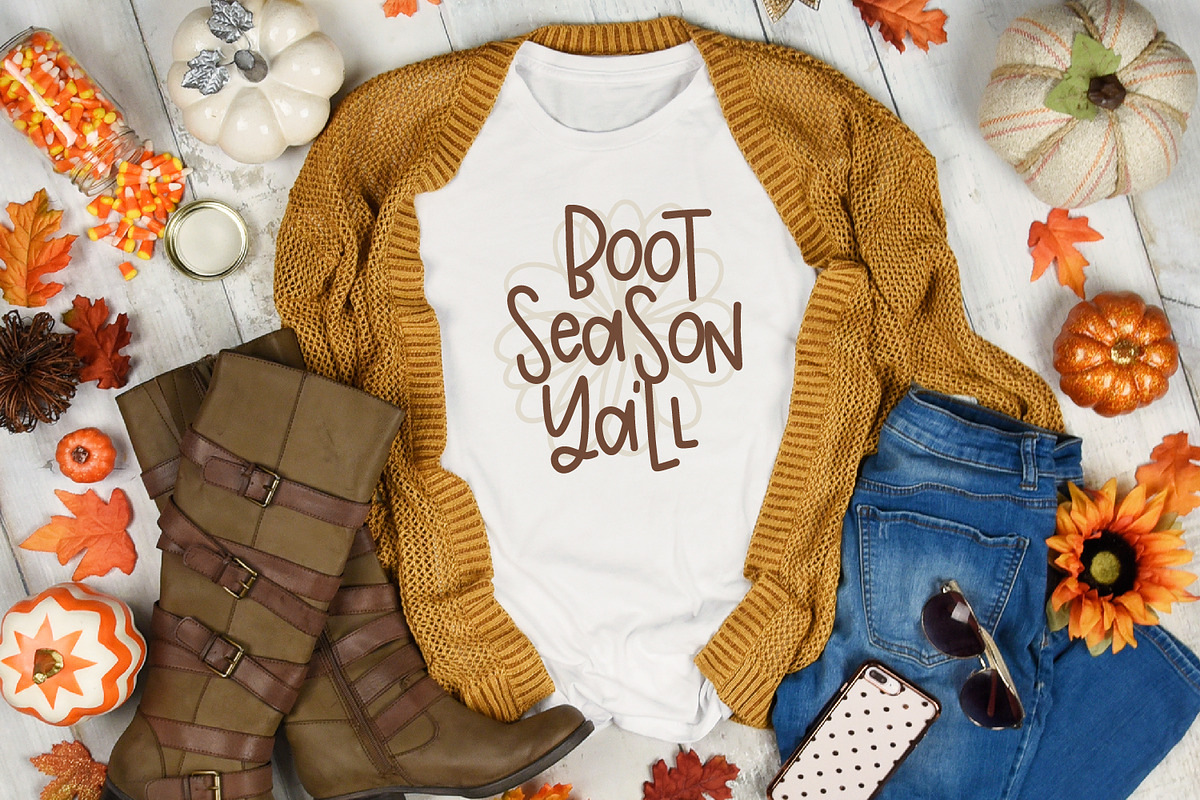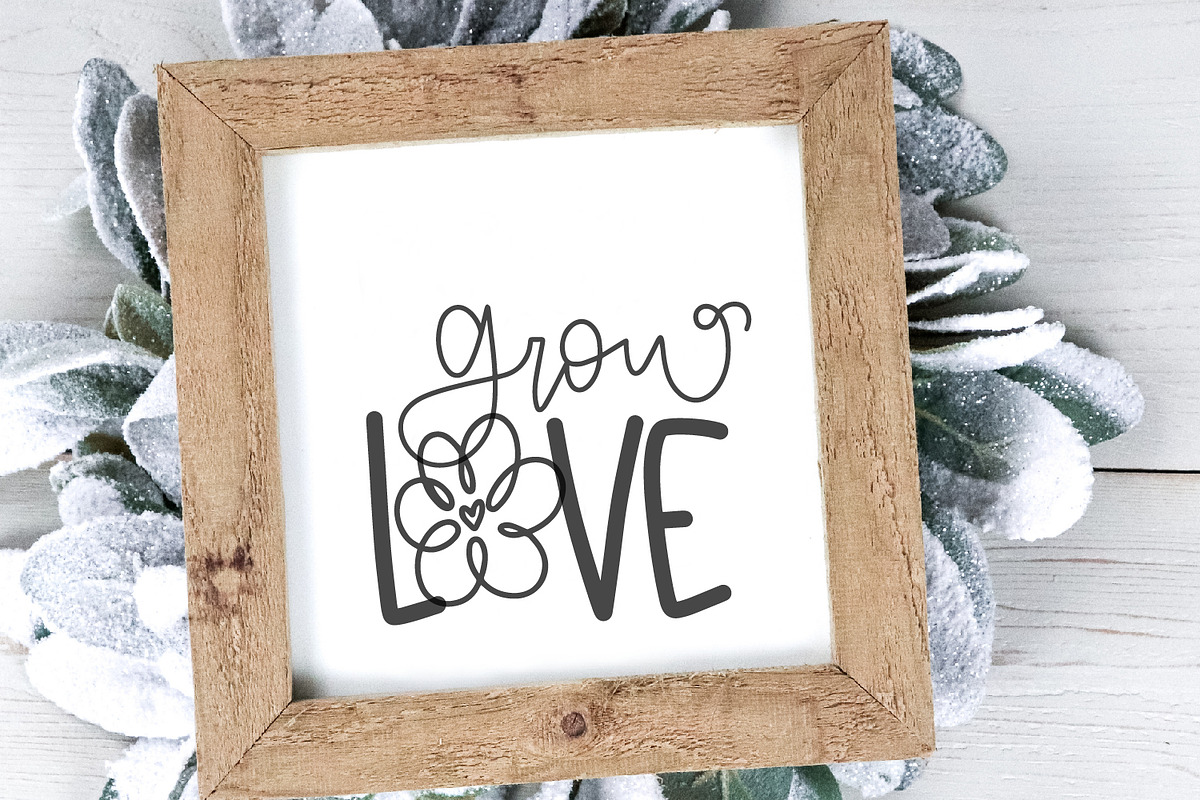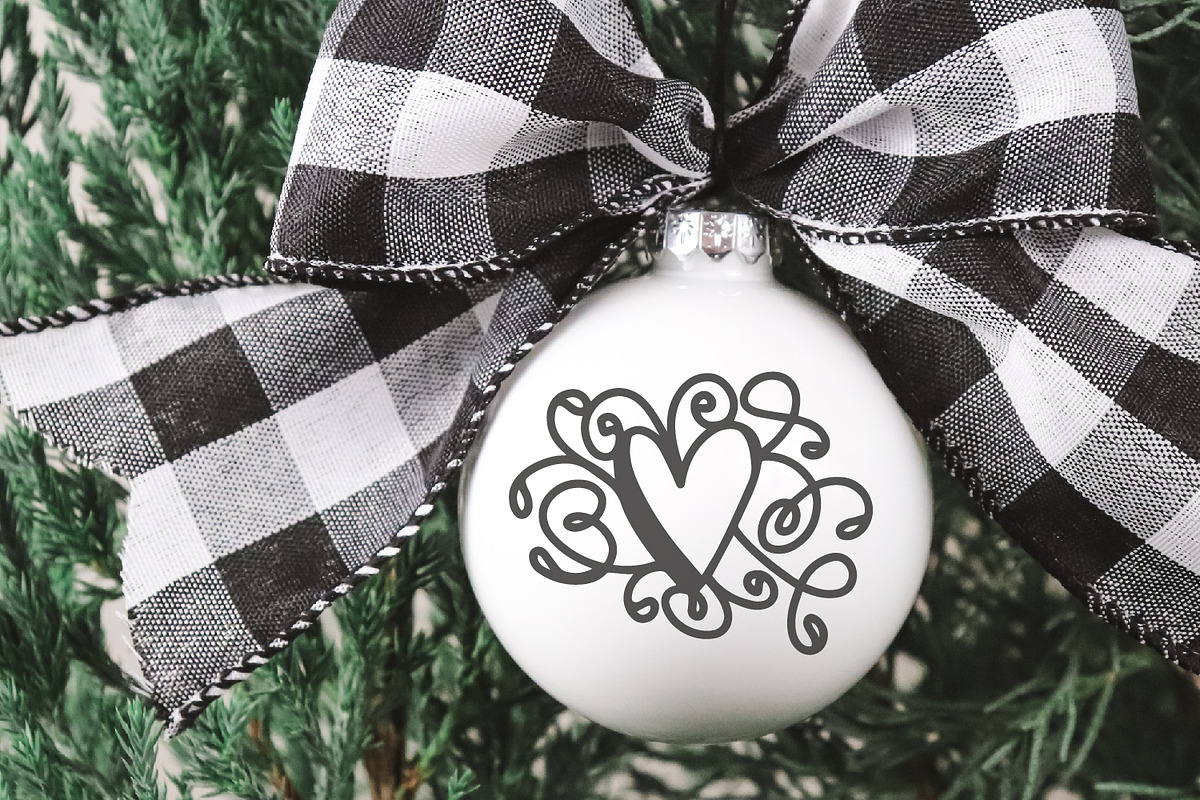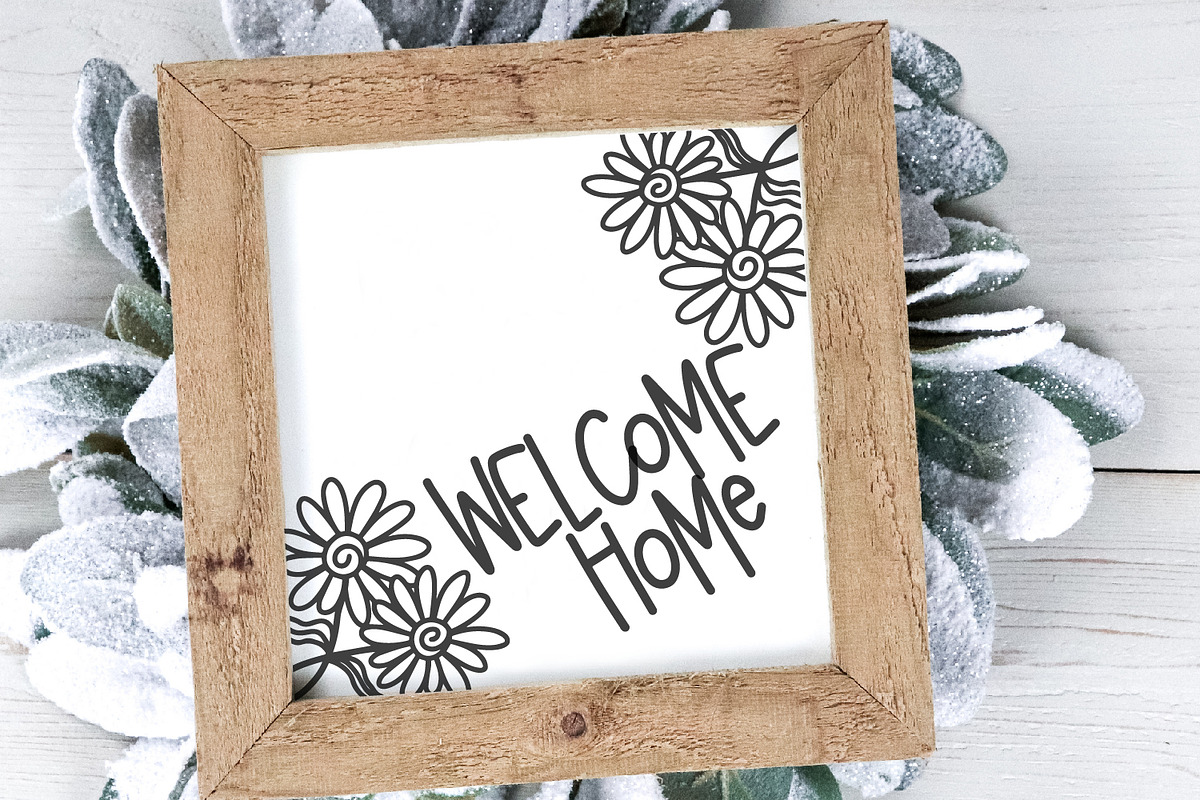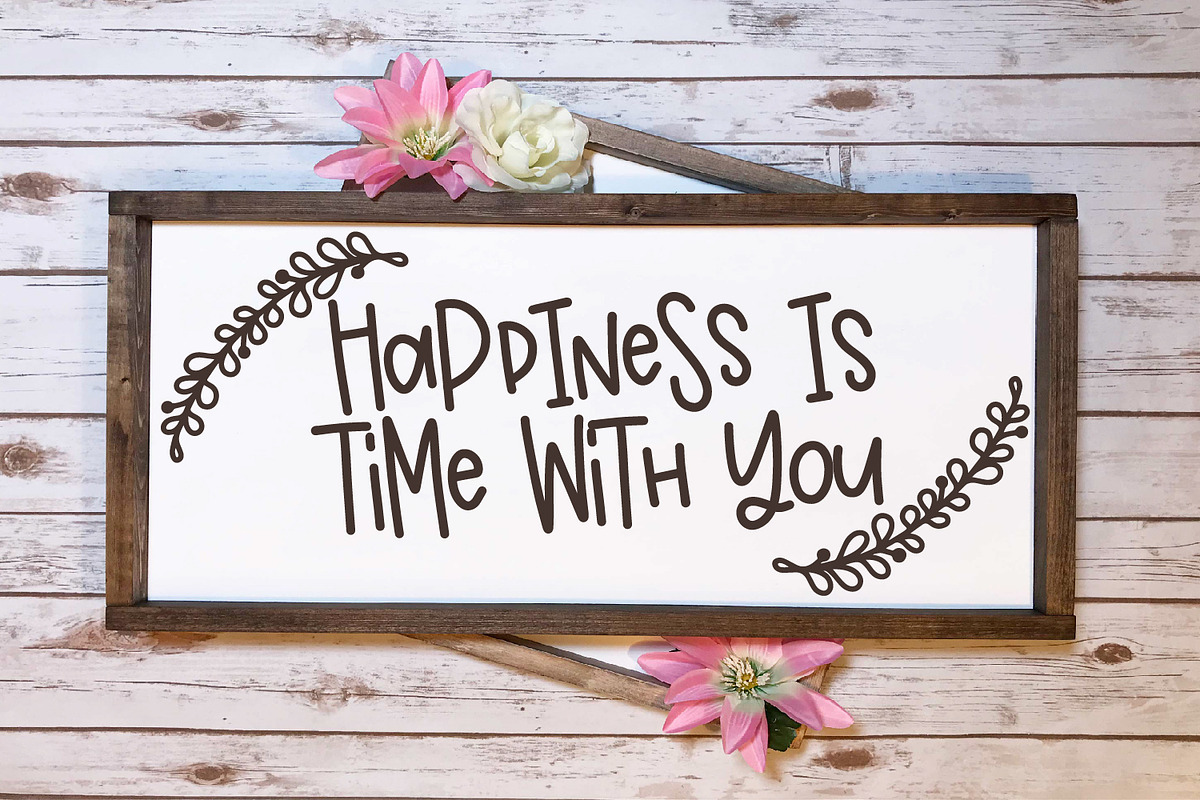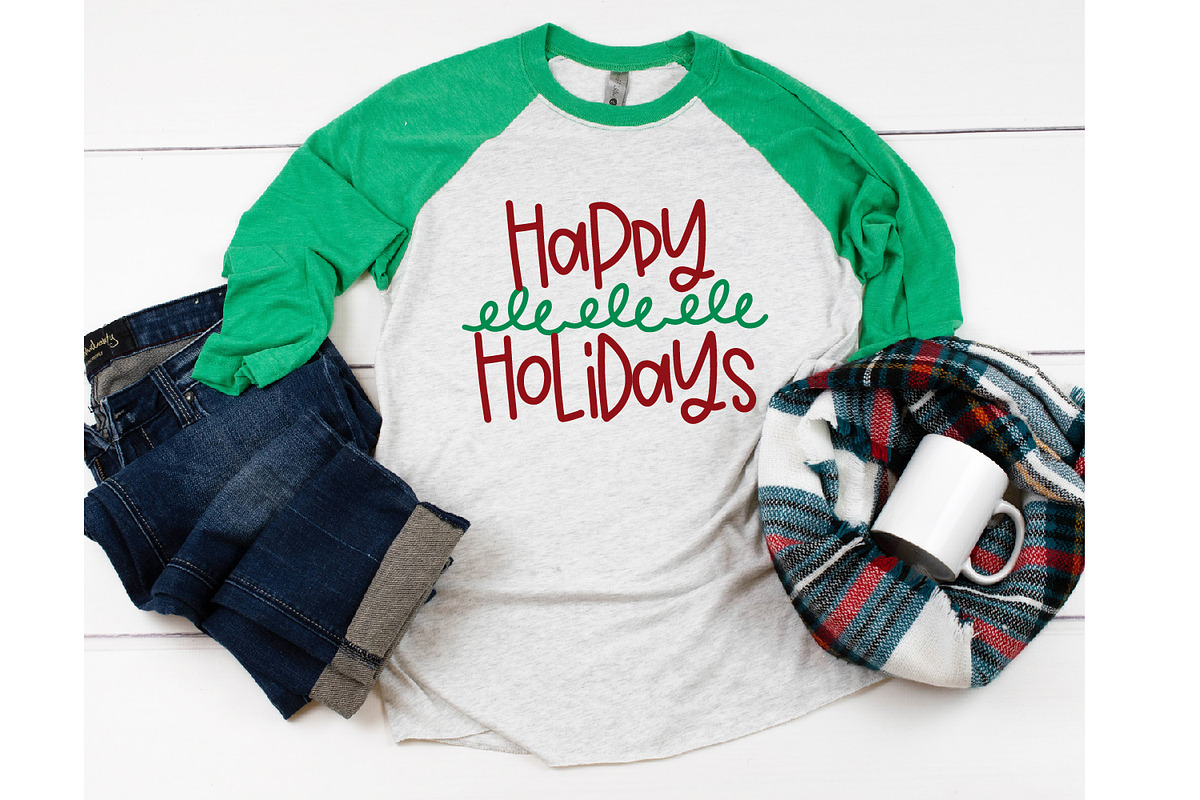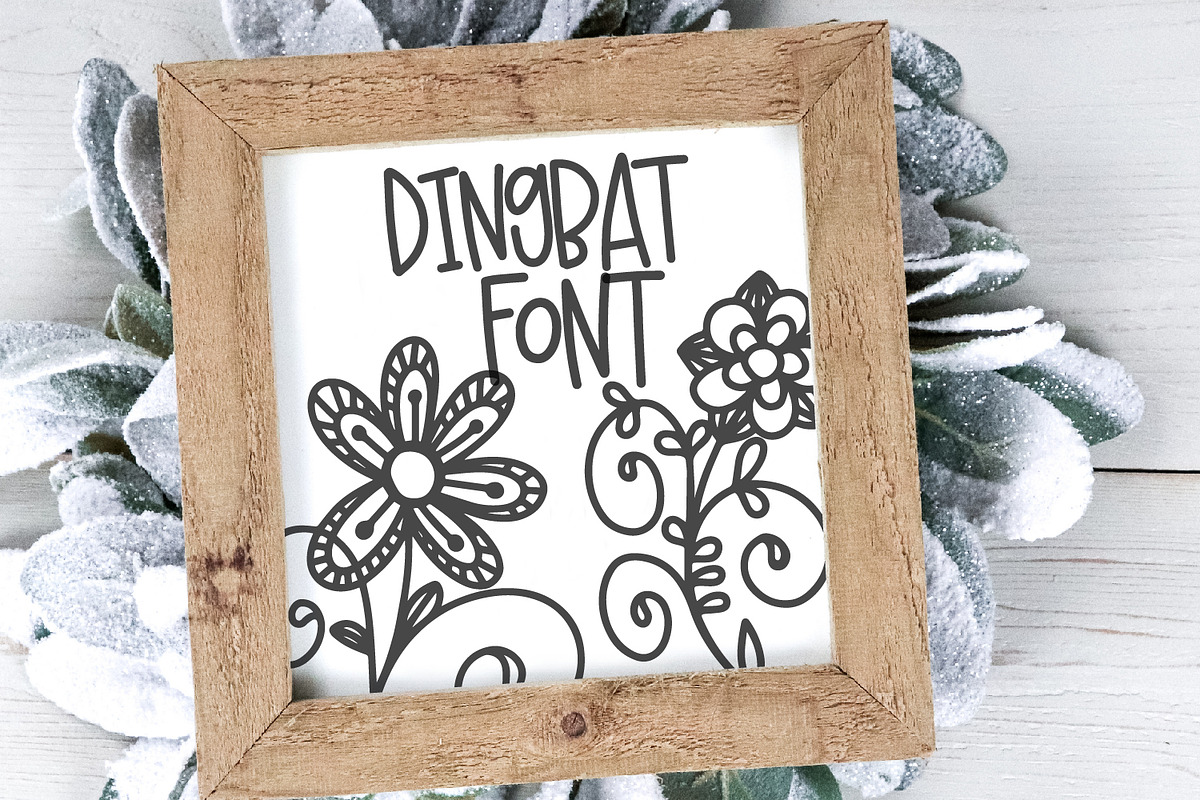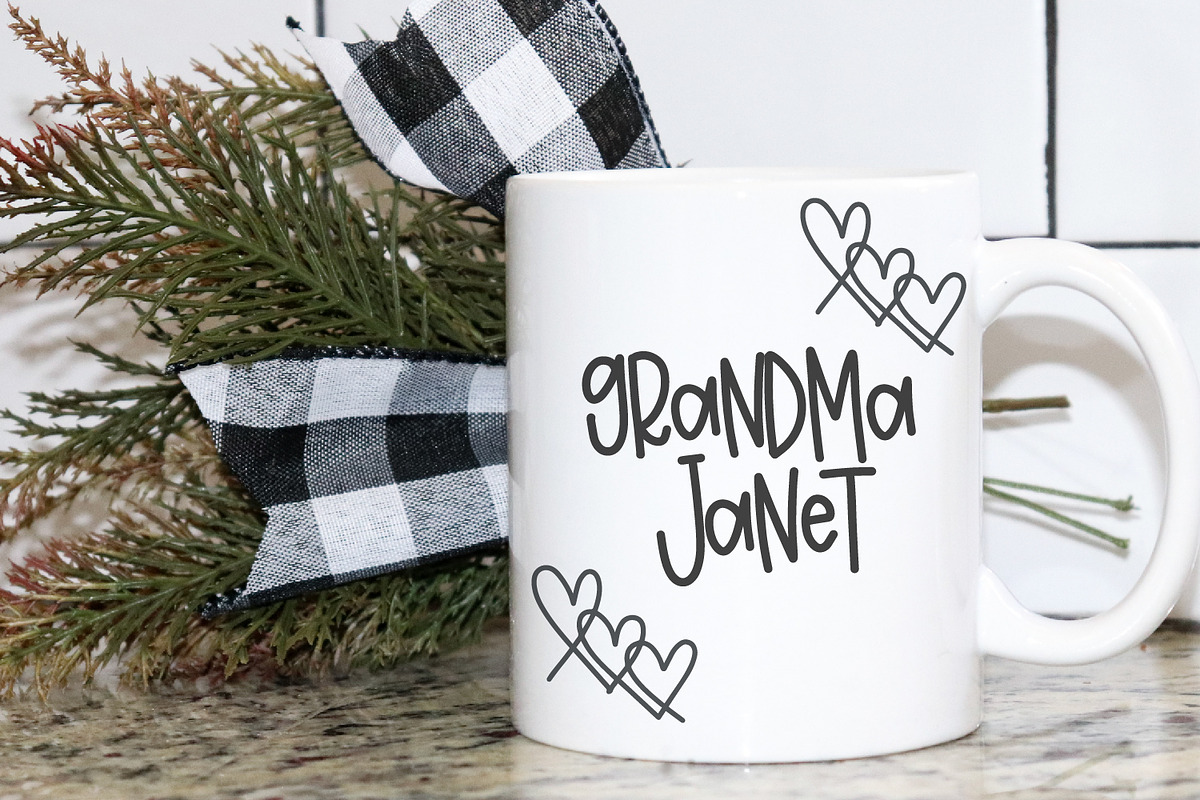
Doodle Bug - A Dingbat Font Duo
Doodle Bug A Dingbat Font Duo by CraftyLittleNodes is a font selected for branding, posters, packaging, typography.
Why Doodle Bug - A Dingbat Font Duo is worth a look
Doodle Bug - A Dingbat Font Duo by CraftyLittleNodes fits naturally into Branding, posters, packaging, typography.